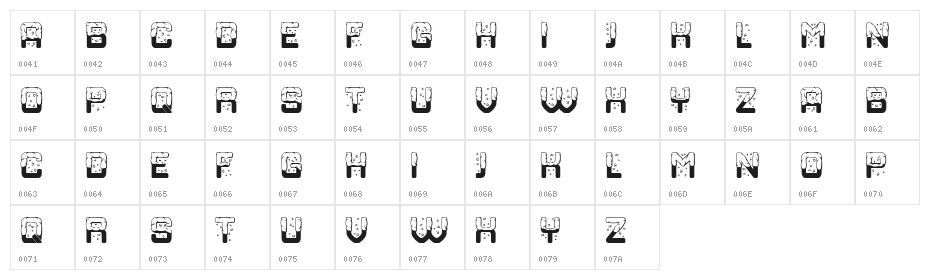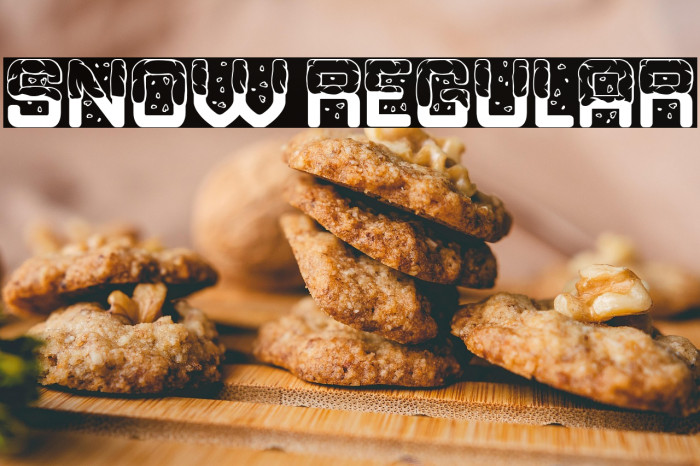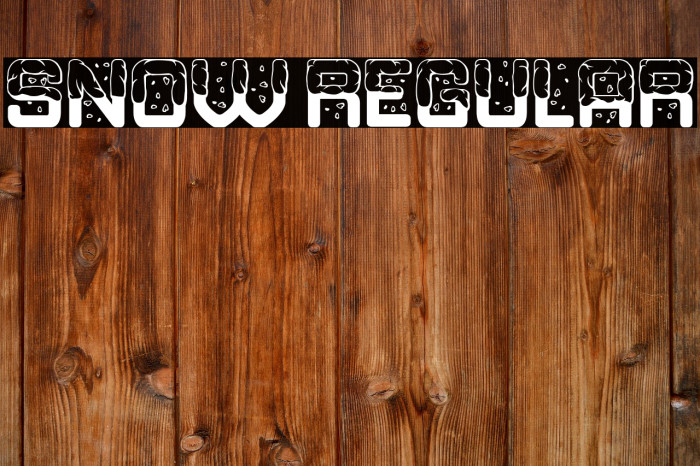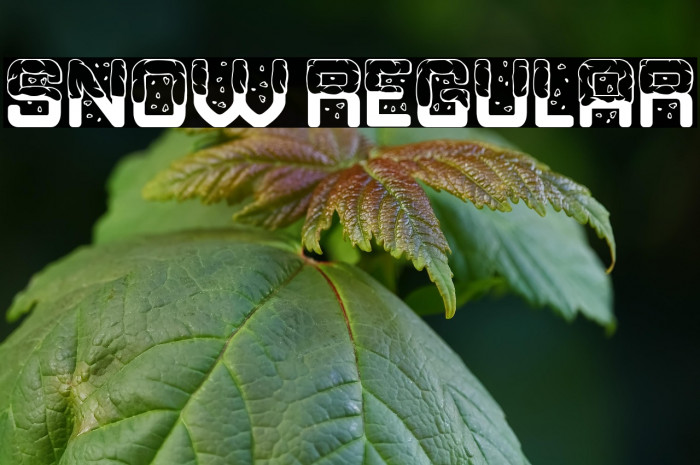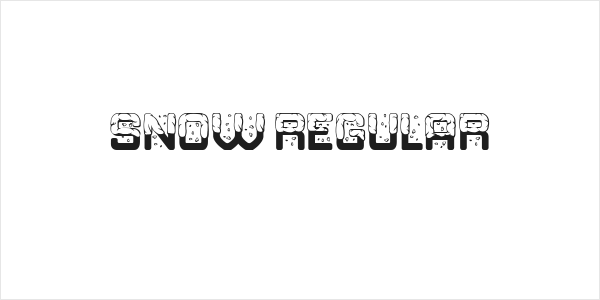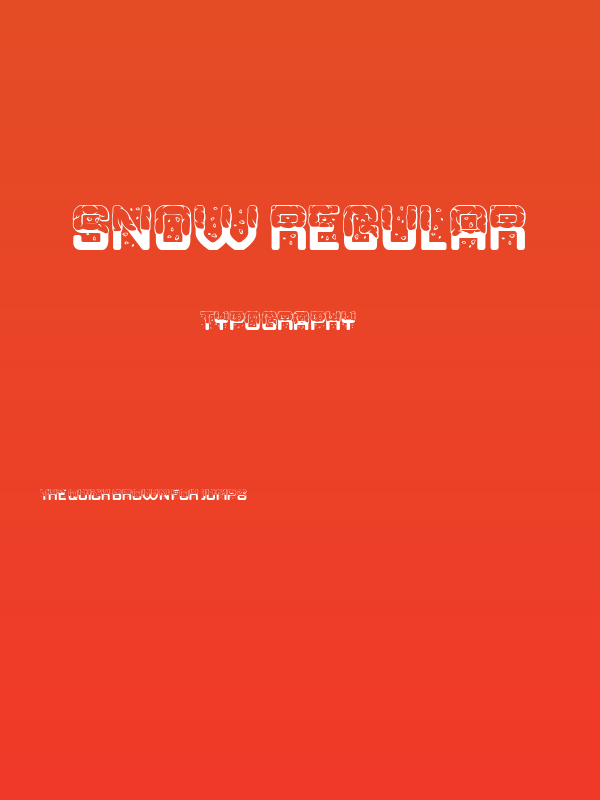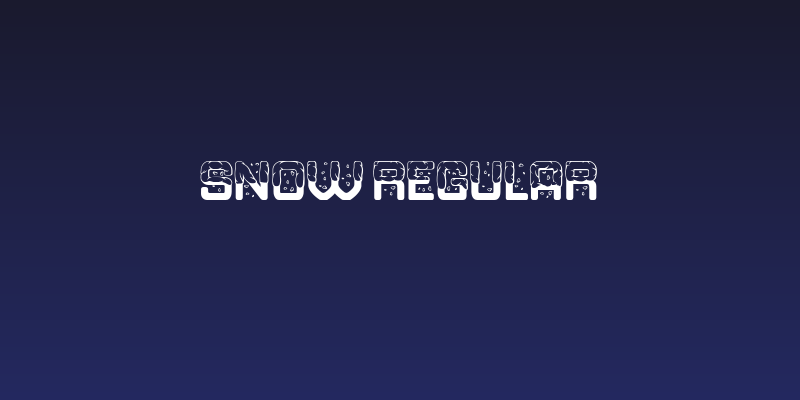
Snow Regular Font
Snow Regular Description
This font features a playful and decorative style, reminiscent of snow-covered letters. Each character is designed with a bold, blocky structure, adorned with snow-like accents that give it a whimsical and festive appearance. The font maintains a consistent thickness throughout, with a slight shadow effect that adds depth and dimension. The characters are evenly spaced, ensuring readability while maintaining its unique aesthetic. This font is ideal for creating a fun and engaging visual impact, perfect for winter-themed projects or holiday designs.
| Proposed Projects | Ideal for holiday cards, winter event posters, festive banners, and children's book covers. |